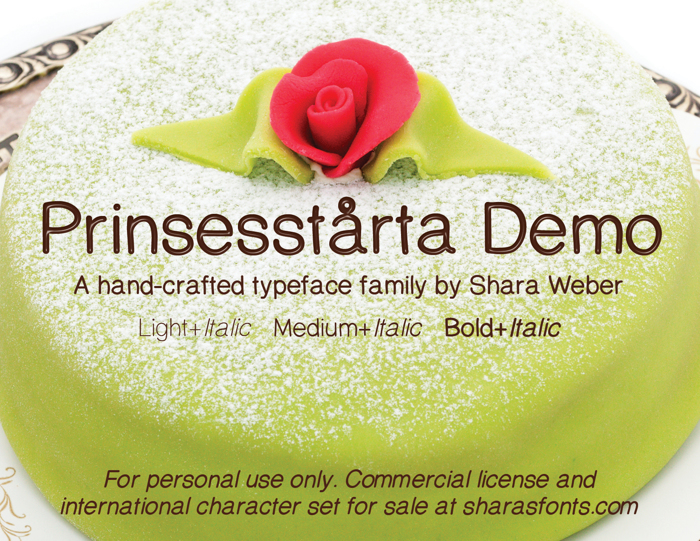
Prinsesstårta Font
Meet Prinsesstårta, a carefully hand-crafted, hand printed typeface. Sweet and delicate like the Swedish Princess Cake that it's named after, it's great for body text, small point sizes, and anything requiring a hand printed look such as comics or cartoons. Six files-light, medium and bold, + italics. Contains Latin and West European glyphs*, so you can even type the word "prinsesstårta" with this font!